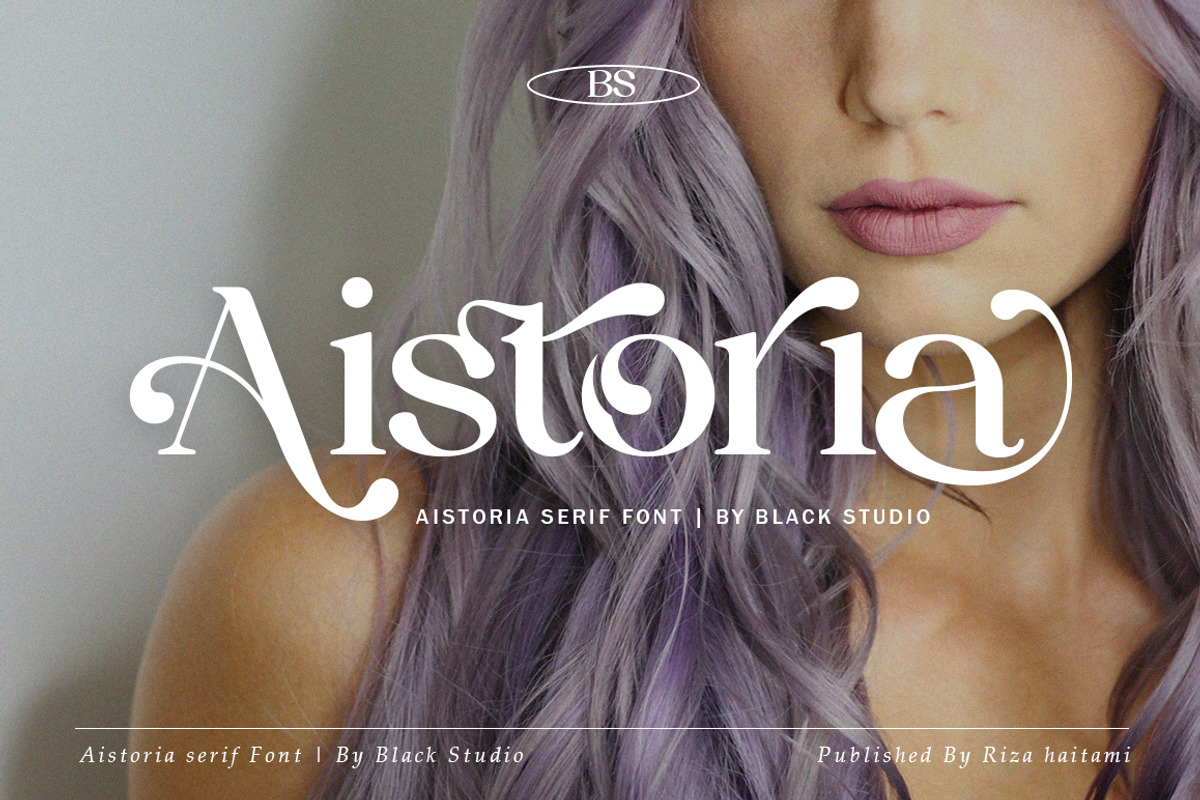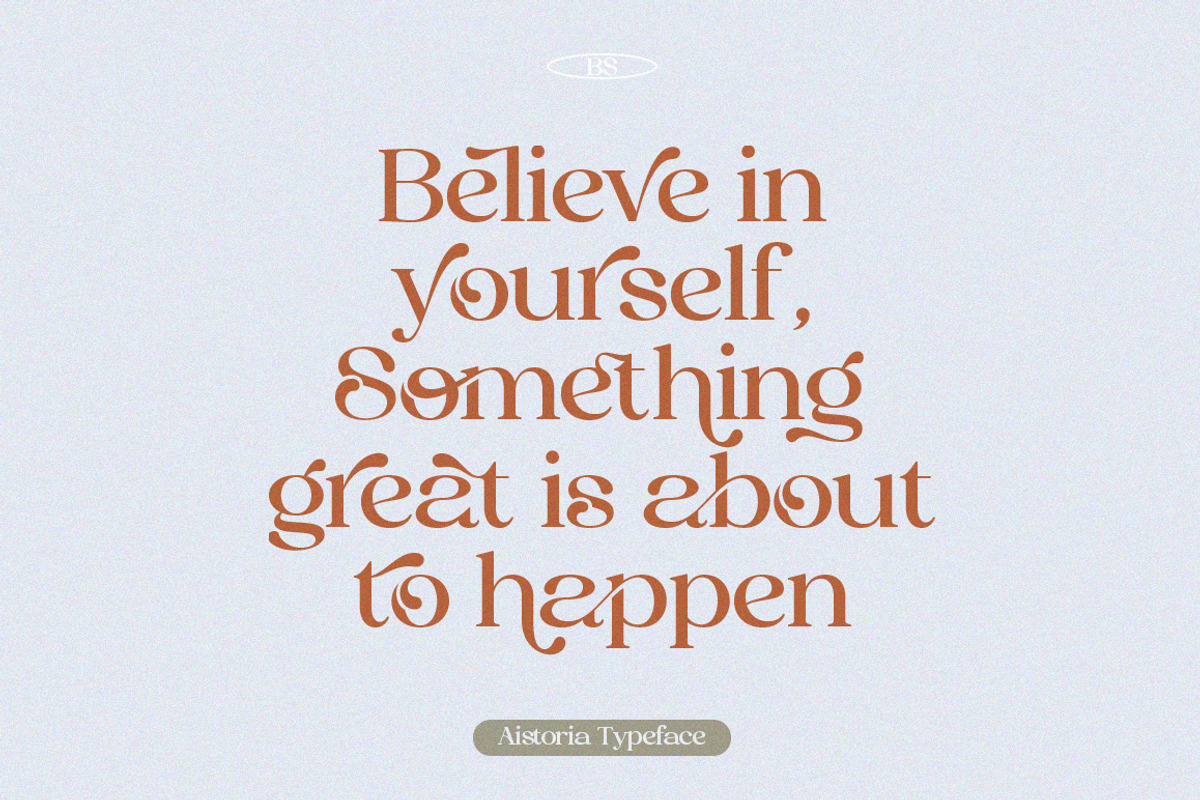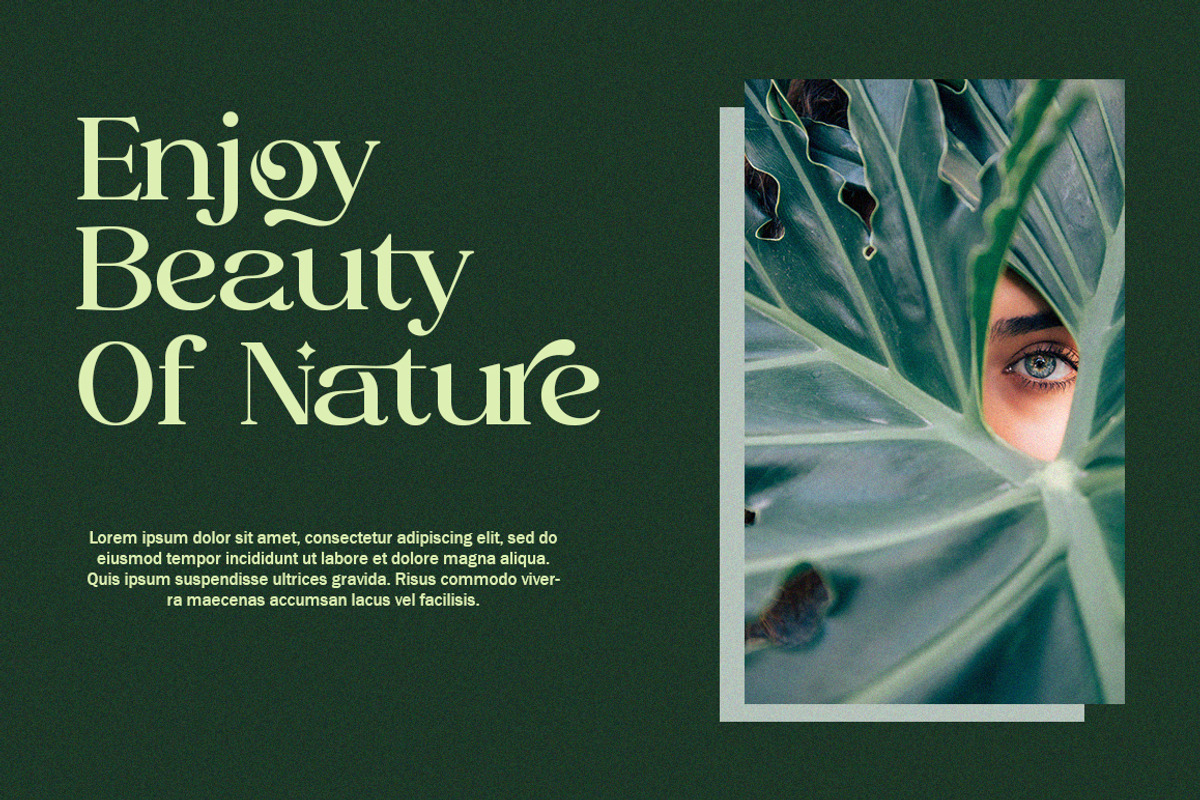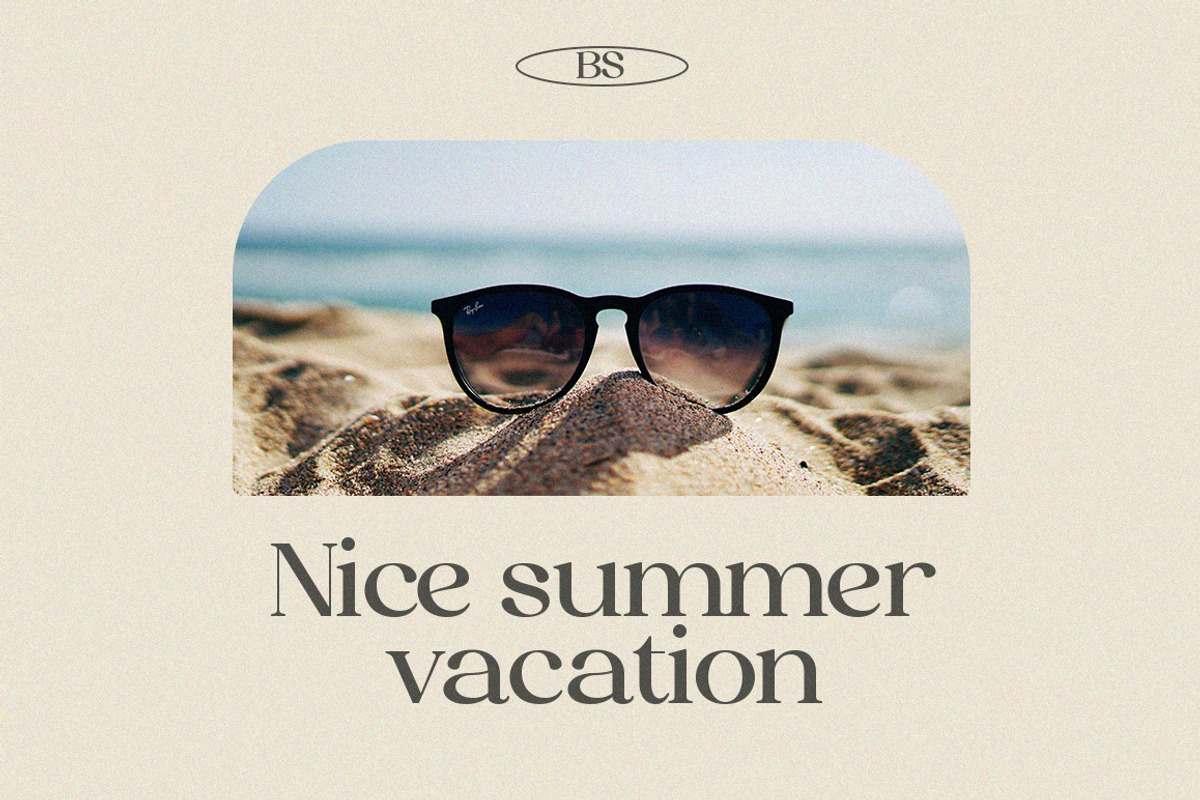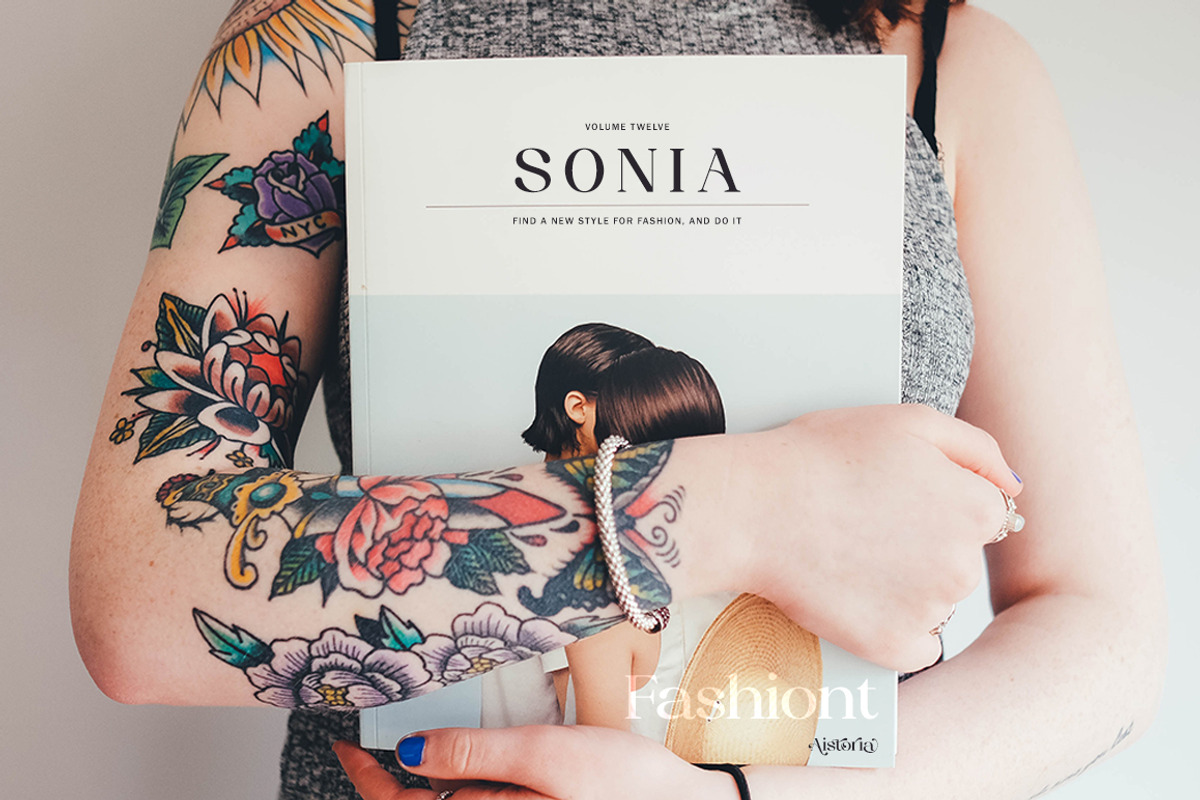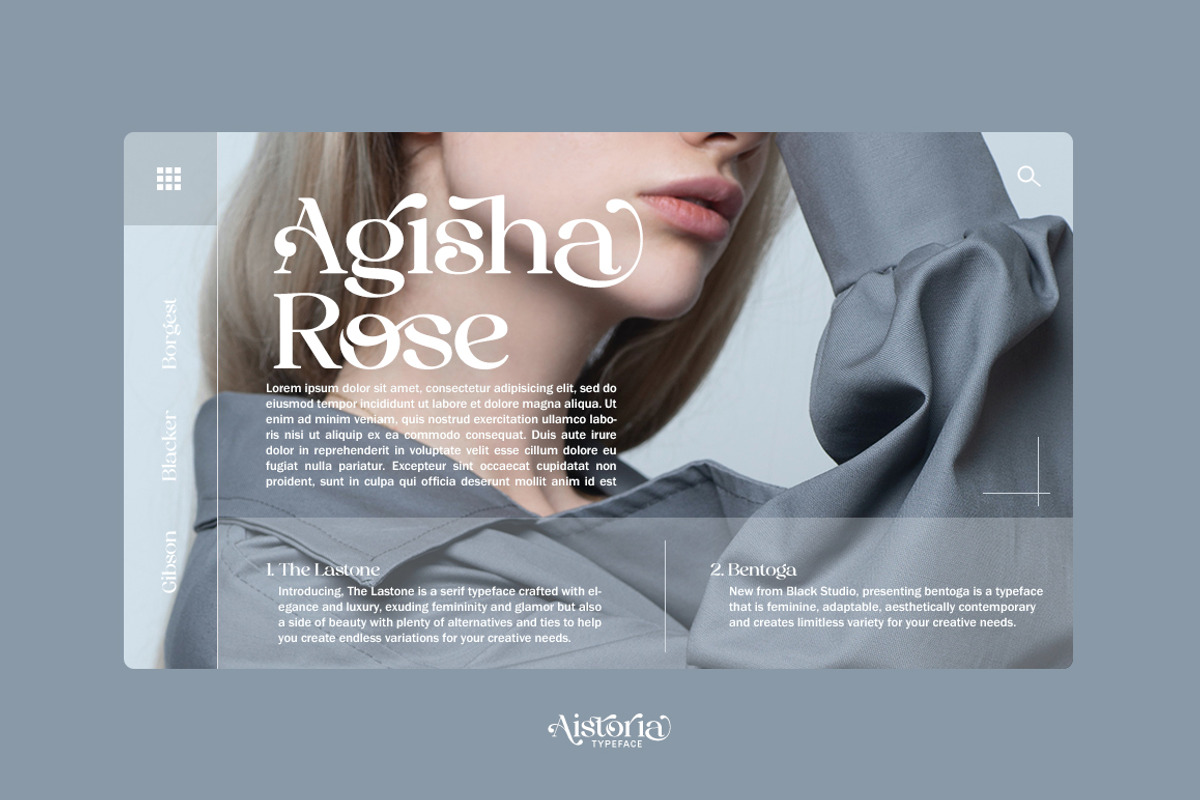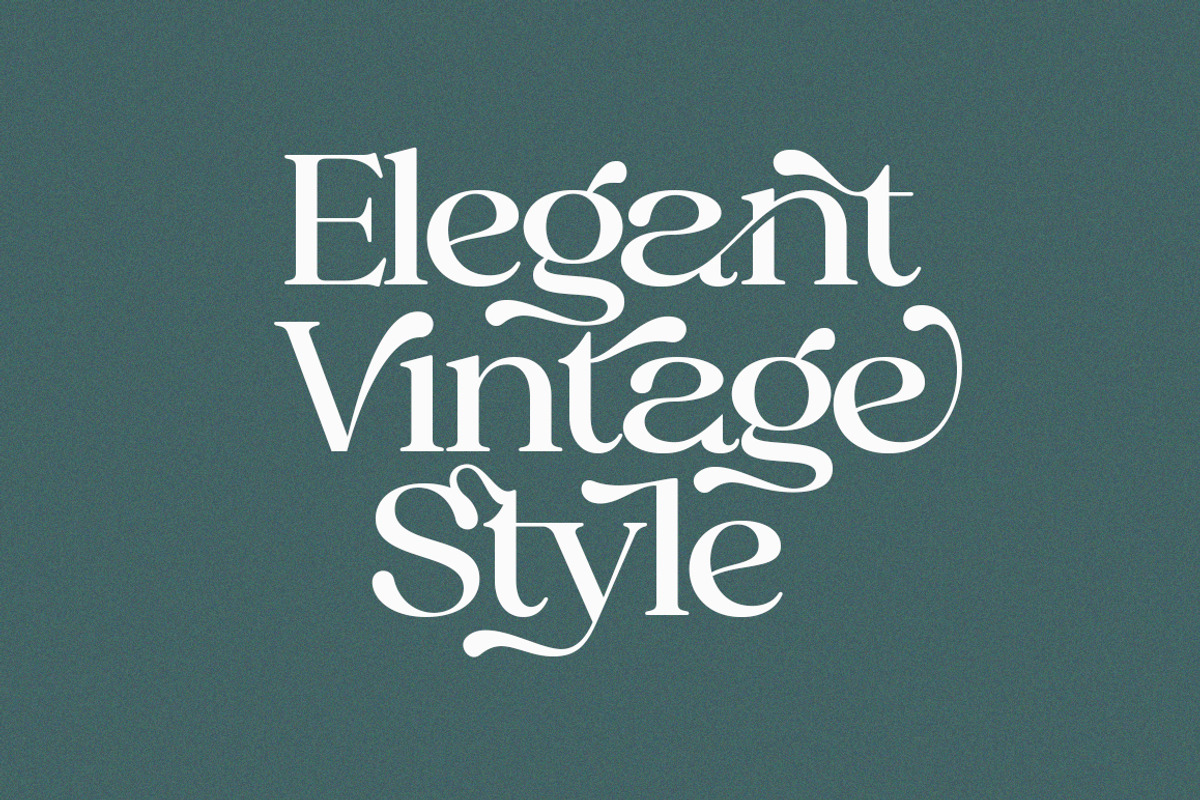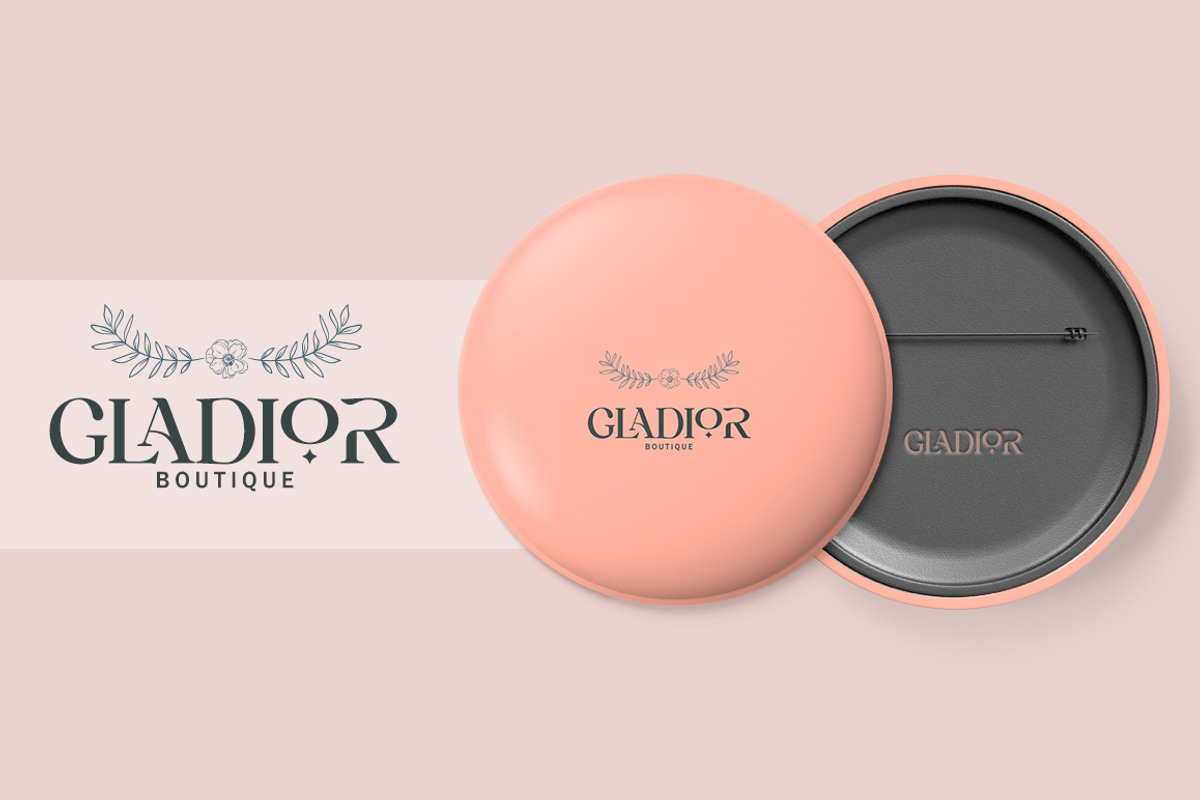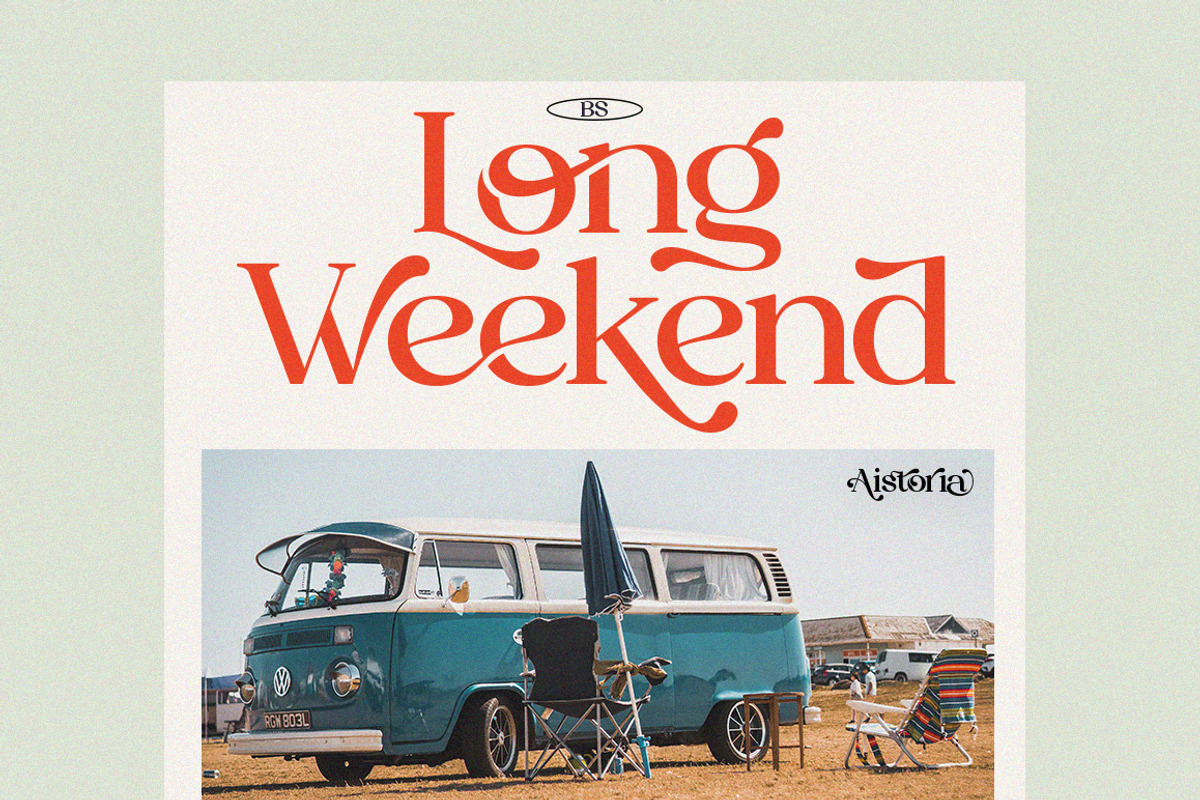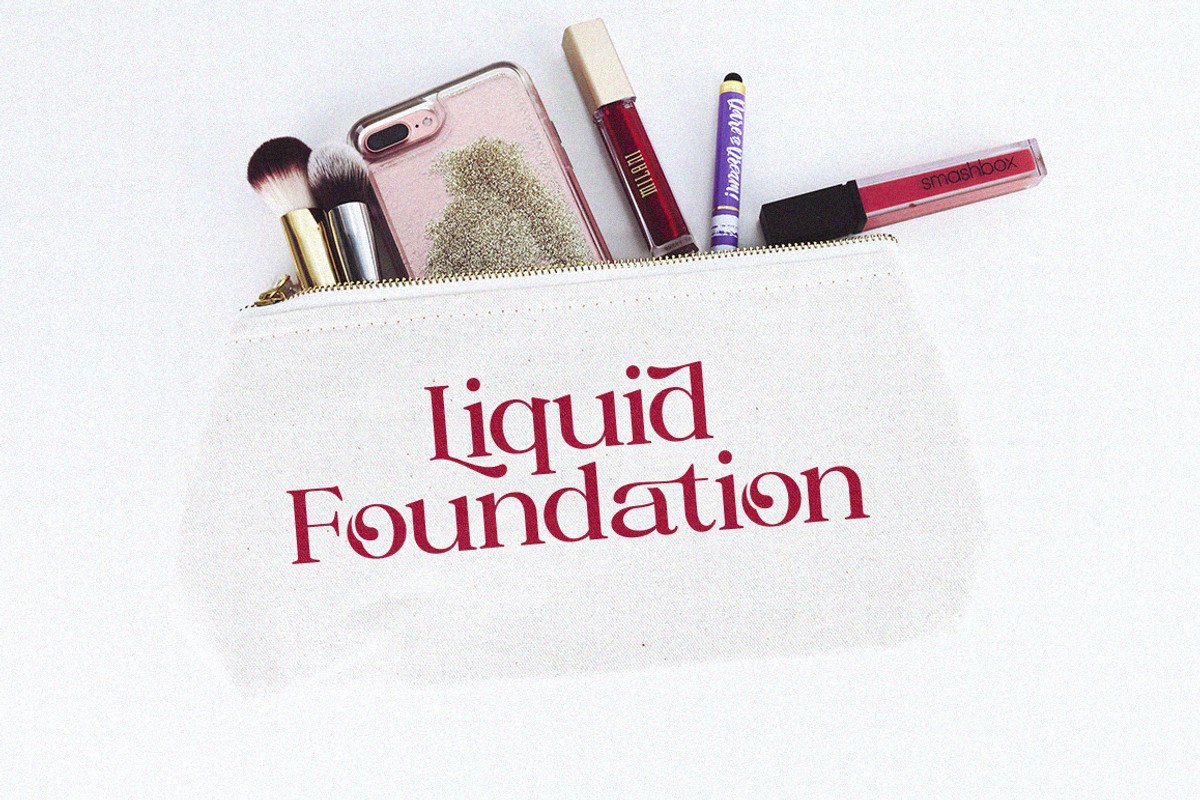
Aistoria
New from Black Studio, presenting Aistoria is a typeface that is feminine, adaptable, aesthetically contemporary and creates limitless variety for your creative needs.
Its striking contrasts and subtle details, together with luxurious strokes and voluptuous curves, create a beautiful and powerful statement for any typographic composition, blending glamor with contemporary aesthetics.
Aistoria really helps you create unlimited variations for your creative needs in making your project titles: such as Books, fashion, magazines, logos, branding, photography, invitations, wedding invitations, quotes, blog headers, posters, advertisements, postcards, books, websites, etc.